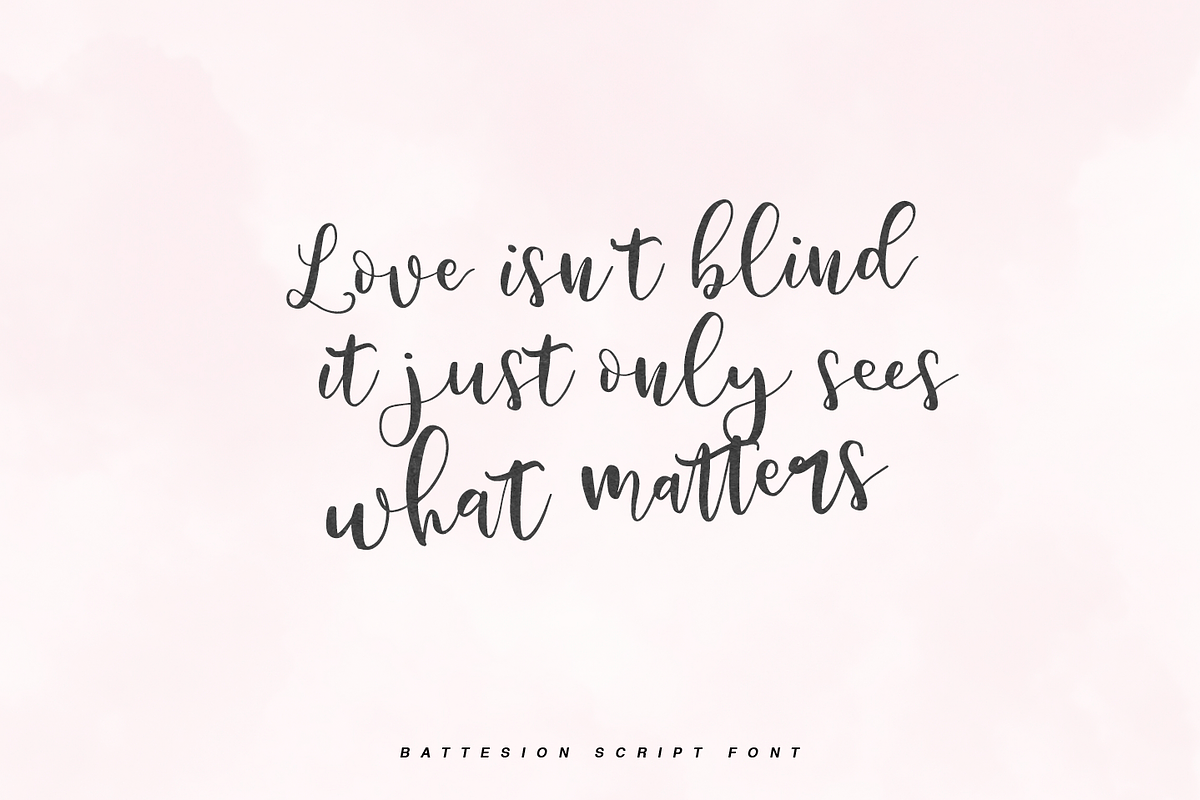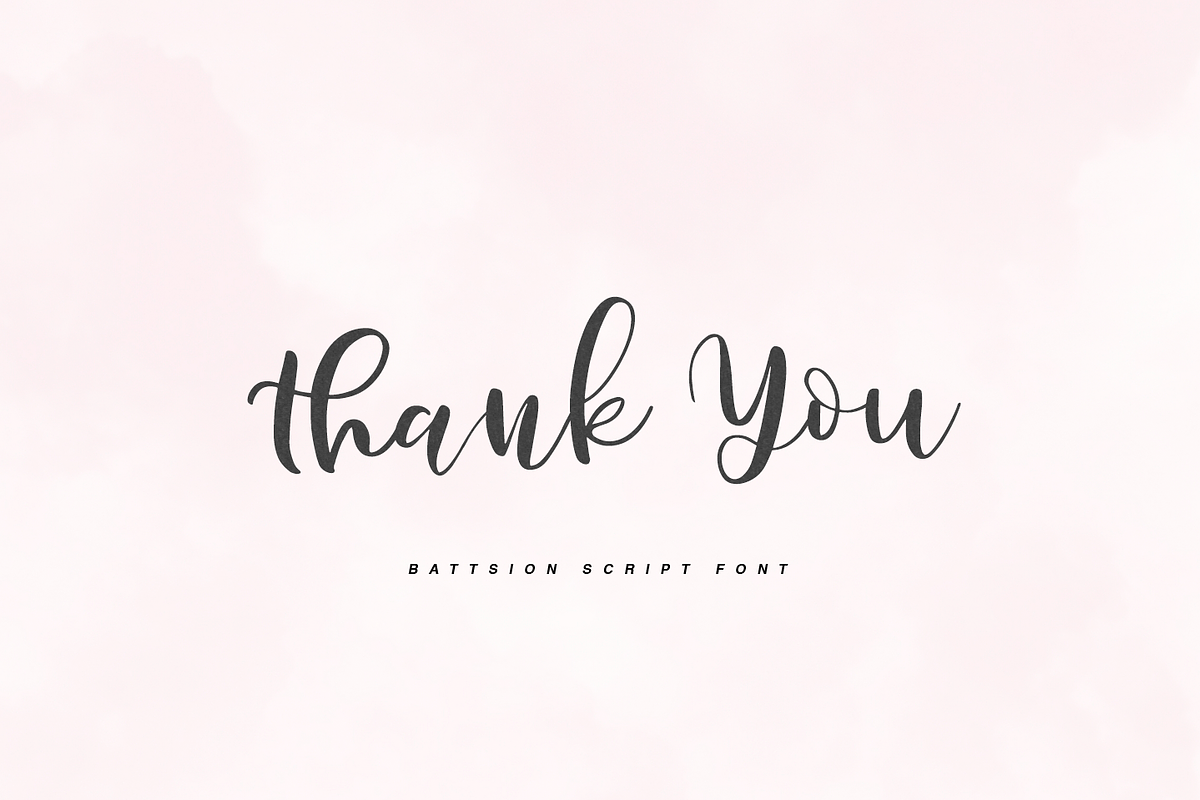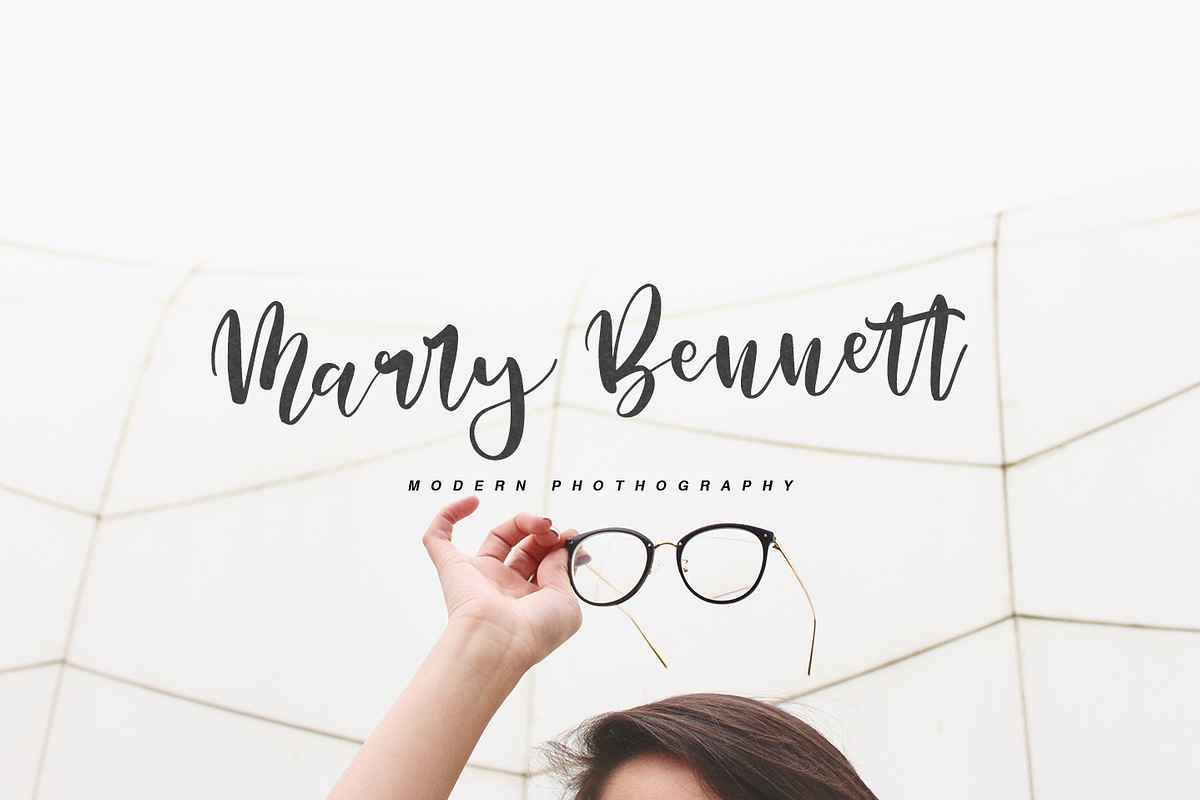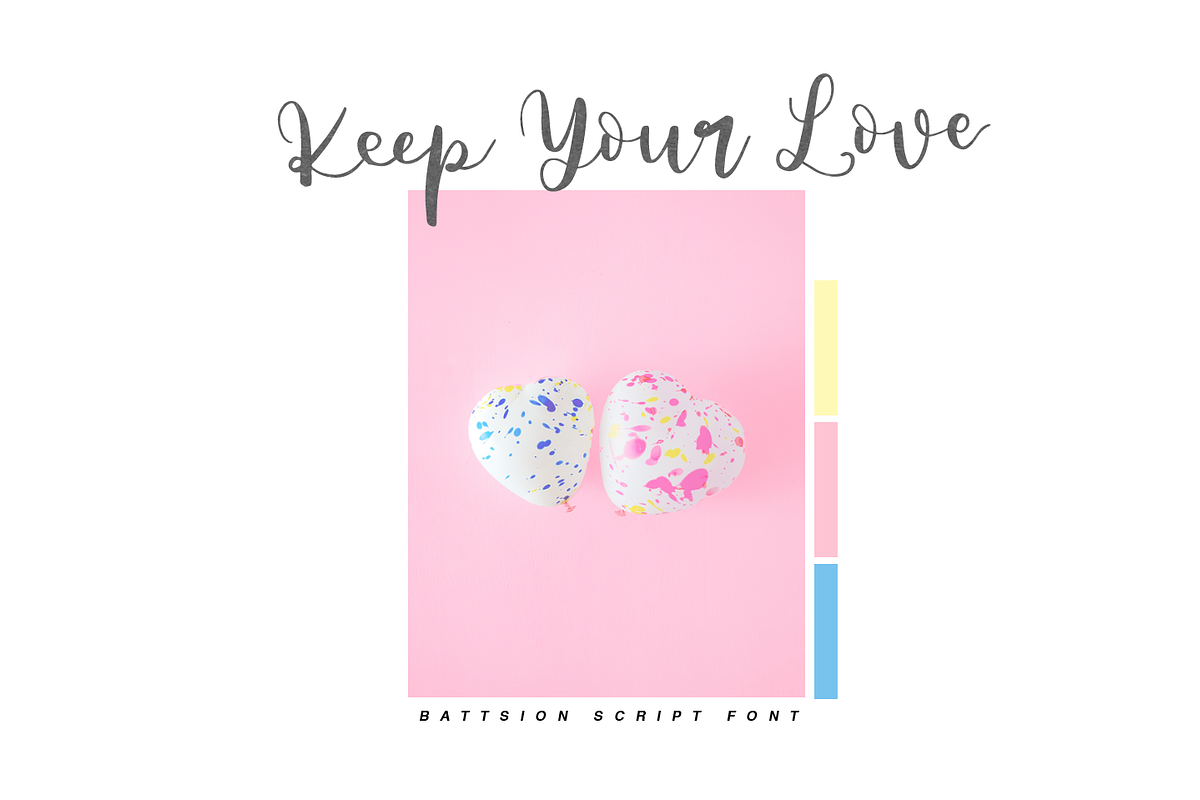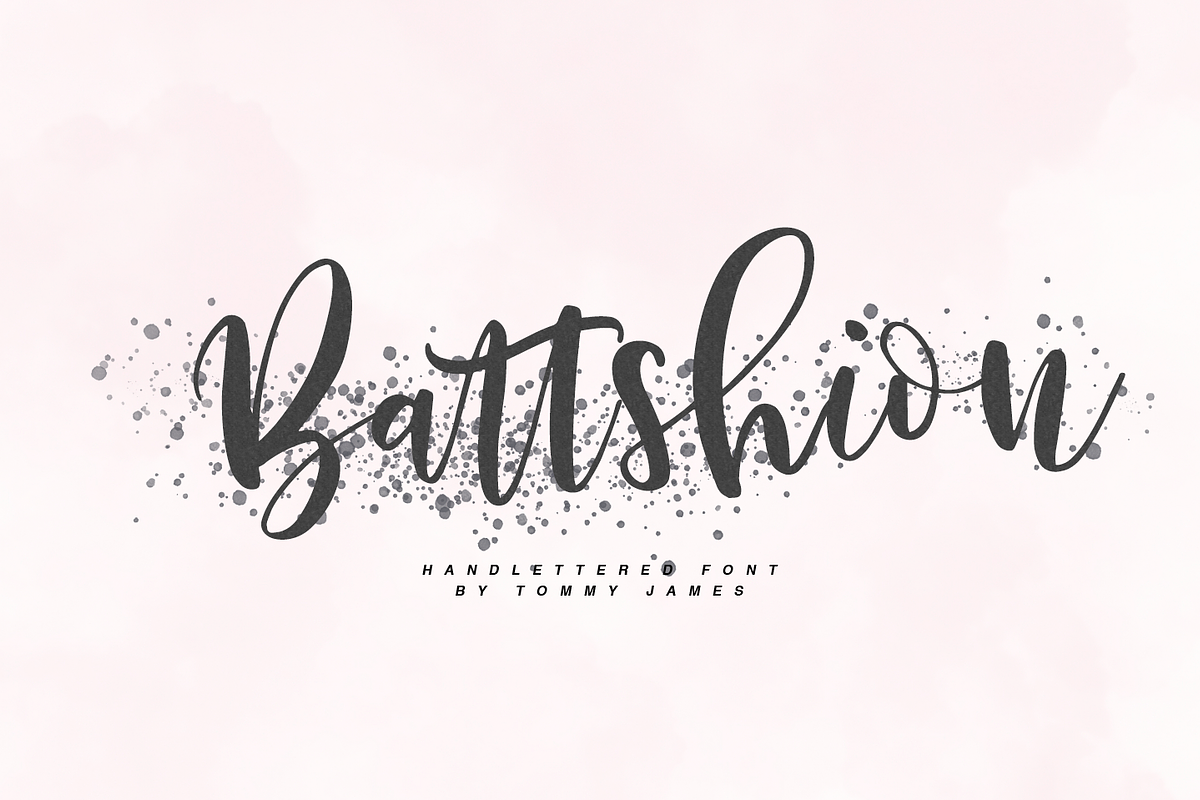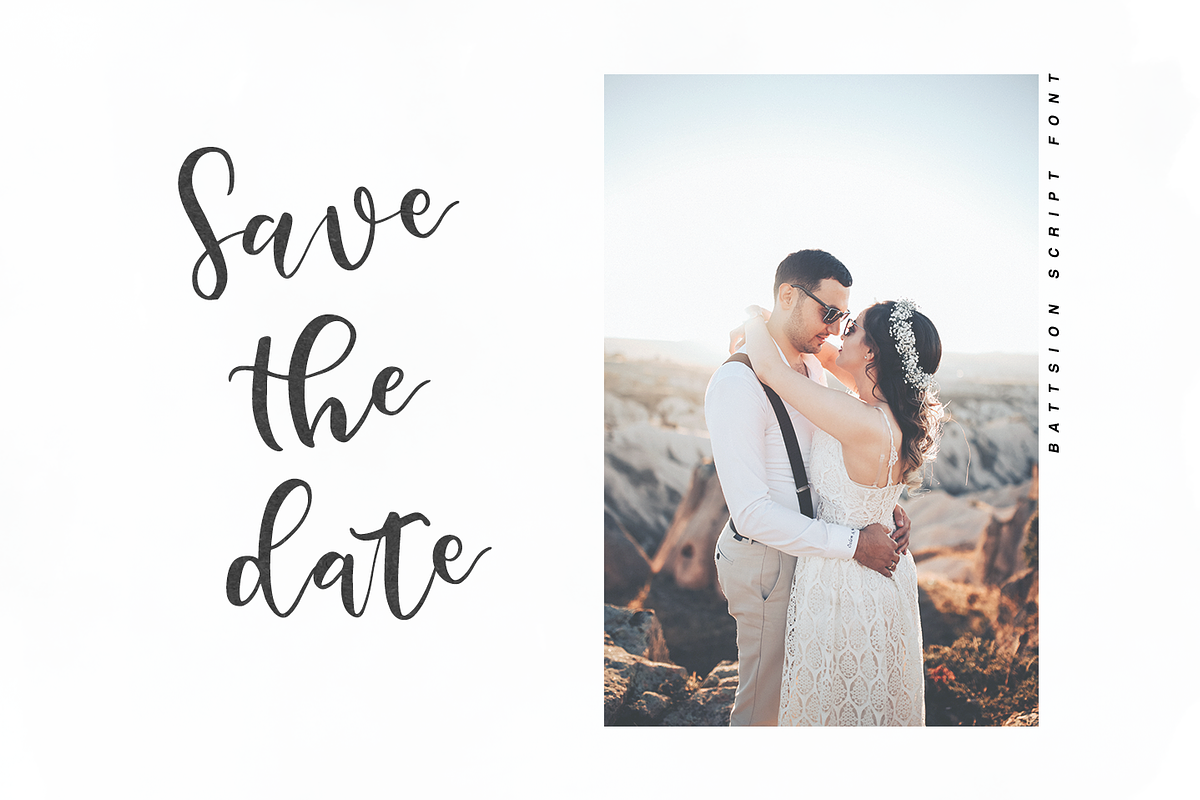
Battshion Script Font
Battshion - a new fresh handmade calligraphy font.
Very suitable for greeting cards, branding materials, business cards, quotes, posters, and more!This font are perfect for wedding postcard. Or you can create perfect and unique design of your logo, blog, stationery, marketing, magazines and more :)
aa at att cc ch ck ee et ett ff ll of off oo rr sh ss th the tt
Why Battshion Script Font is worth a look
Battshion Script Font by Quothron fits naturally into Branding, posters, packaging, typography.